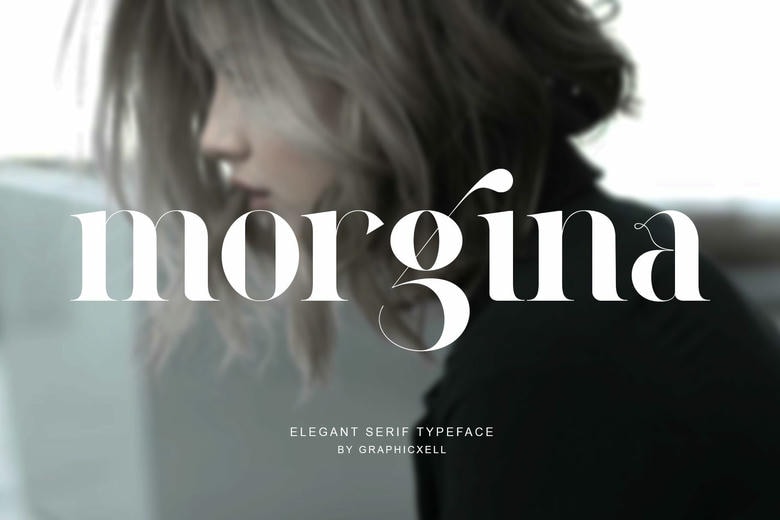
Morgina Font
Morgina is very childish and also makes one reminisce while gifting an excellent retro look. Employ this serif font in your designs to give them that extra old school feel that you’re looking for in any great design concept that comes to your mind.
Morgina Serif Font